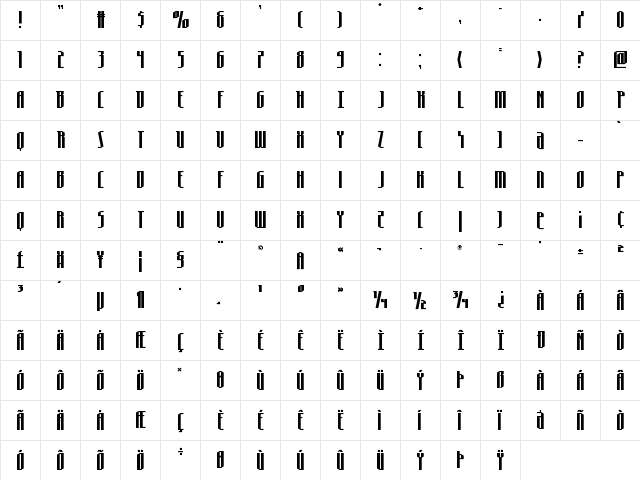
Hydronaut Regular
Design Context for Hydronaut Typeface
Hydronaut is a composed and adaptable typeface that performs quietly and consistently across a wide range of design contexts.